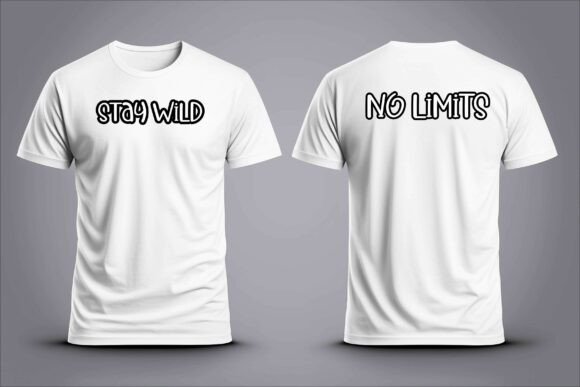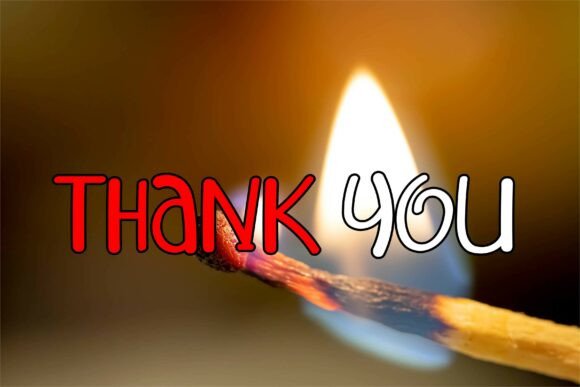
Introducing Cartoon Mooren Font: The Ultimate Choice for Fun and Playful Designs
Are you looking for a font that can add a touch of fun and playfulness to your designs? Look no further than Cartoon Mooren Font! This delightful display font is inspired by cartoon lettering, cheerful kids’ designs, comic titles, and colorful creative projects. With its bold, friendly, and expressive character, Cartoon Mooren is perfect for designs that need a joyful and eye-catching look.
What Makes Cartoon Mooren Font So Special?
Cartoon Mooren Font has a unique cartoon-style letterforms that bring a happy and energetic feeling to every design. Its bold and playful character makes it perfect for a wide range of applications, from children’s books and comic covers to stickers, posters, and social media graphics. Whether you’re creating a cute kids’ design, a fun cartoon logo, or a playful poster, Cartoon Mooren will help your artwork look more lively, memorable, and full of personality.
Cartoon Mooren Font is versatile and can be used for a variety of design projects, including:
• Children’s books: Add a touch of fun and playfulness to your children’s book with Cartoon Mooren Font.
• Comic covers: Create eye-catching comic covers with Cartoon Mooren Font’s bold and playful character.
• Stickers: Design fun and colorful stickers with Cartoon Mooren Font.
• Posters: Create playful posters for kids’ events, parties, or educational purposes.
• School projects: Add a creative touch to school projects with Cartoon Mooren Font.
• Toy packaging: Make your toy packaging stand out with Cartoon Mooren Font’s playful character.
• Birthday invitations: Design fun and colorful birthday invitations with Cartoon Mooren Font.
• YouTube thumbnails: Create eye-catching YouTube thumbnails with Cartoon Mooren Font.
• Game titles: Add a touch of fun and playfulness to game titles with Cartoon Mooren Font.
• Social media graphics: Create engaging social media graphics with Cartoon Mooren Font.
Why Choose Cartoon Mooren Font?
There are many reasons why you should choose Cartoon Mooren Font for your design projects. Here are a few:
• Unique and playful character: Cartoon Mooren Font has a unique and playful character that will add a touch of fun to your designs.
• Bold and expressive: Cartoon Mooren Font is bold and expressive, making it perfect for designs that need to stand out.
• Easy to read: Despite its playful character, Cartoon Mooren Font is easy to read, making it perfect for designs that need to communicate a message.
• Versatile: Cartoon Mooren Font can be used for a wide range of design projects, from children’s books to social media graphics.
Tips for Using Cartoon Mooren Font
Here are a few tips for using Cartoon Mooren Font:
• Use it for headlines: Cartoon Mooren Font is perfect for headlines and titles, where its bold and playful character can shine.
• Experiment with colors: Cartoon Mooren Font looks great in bright and bold colors, so don’t be afraid to experiment.
• Pair it with other fonts: Cartoon Mooren Font can be paired with other fonts to create a unique and interesting design.
Cartoon Mooren Font is a fun and playful display font that is perfect for designs that need a joyful and eye-catching look. With its unique cartoon-style letterforms, bold and expressive character, and versatility, Cartoon Mooren Font is a great choice for designers and crafters looking to add a touch of fun and playfulness to their designs. Whether you’re creating a children’s book, comic cover, or social media graphic, Cartoon Mooren Font is sure to bring a smile to your audience’s face.